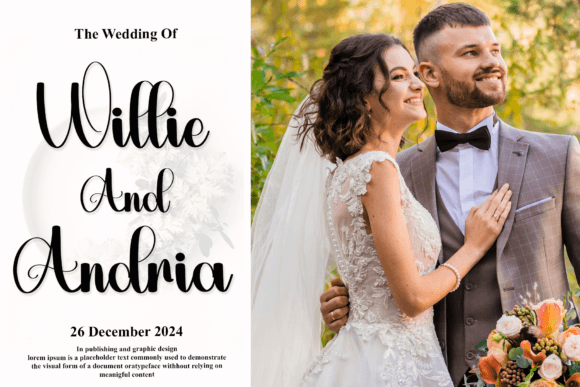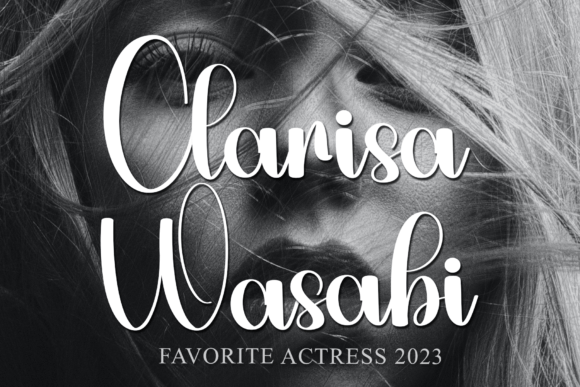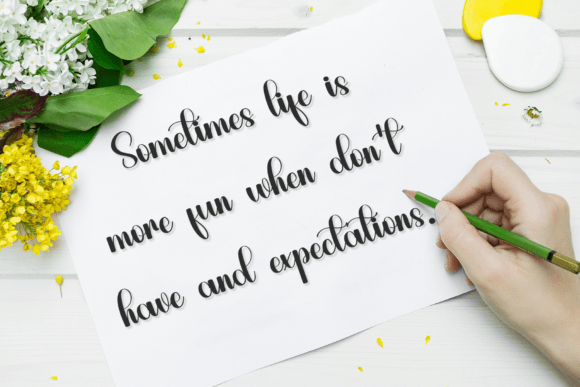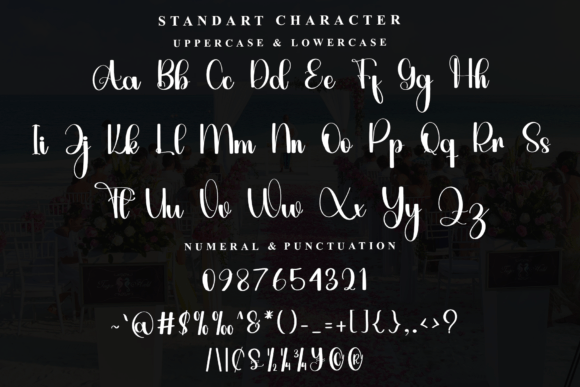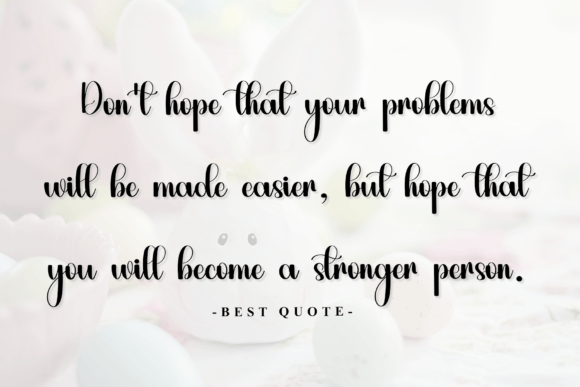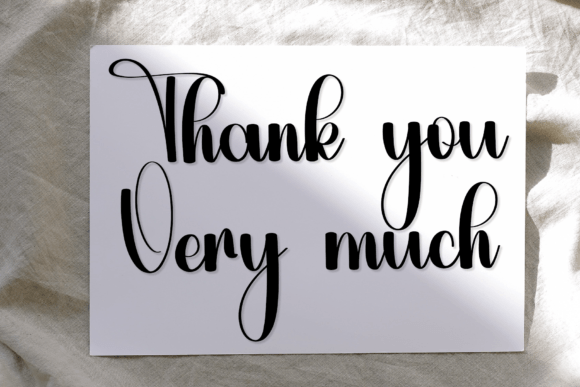
Haily Font: A Charming Handwritten Font for Your Creative Projects
Are you looking for a font that can add a touch of warmth and personality to your designs? Look no further than Haily Font, a charming handwritten font that exudes a sense of whimsy and playfulness. With its natural strokes and irregularities, Haily Font is perfect for designers and crafters who want to bring a sense of handmade authenticity to their projects.
The Characteristics of Haily Font
Haily Font is a handwritten font that is characterized by its playful yet legible style. The font features natural strokes and irregularities that give it a sense of authenticity and human touch. The letters are carefully crafted to resemble handwriting, with subtle variations in line width and spacing that create a sense of movement and fluidity.
One of the standout features of Haily Font is its ability to balance playfulness with legibility. The font is easy to read, even at smaller sizes, making it perfect for use in a variety of applications, from greeting cards and invitations to branding and packaging.
Uses for Haily Font
Haily Font is a versatile font that can be used in a wide range of creative projects. Here are some ideas to get you started:
- Greeting Cards and Invitations: Add a personal touch to your greeting cards and invitations with Haily Font. The font’s playful style is perfect for special occasions like weddings, birthdays, and holidays.
- Branding and Packaging: Use Haily Font to add a touch of whimsy to your brand’s packaging and marketing materials. The font’s natural, handmade feel is perfect for brands that want to stand out from the crowd.
- Stationery and Journaling: Haily Font is a great choice for stationery and journaling projects. The font’s playful style adds a touch of personality to any journal or notebook.
- Digital Design: Haily Font can also be used in digital design projects, such as social media graphics, blog posts, and website headers.
Benefits of Using Haily Font
There are many benefits to using Haily Font in your creative projects. Here are a few:
- Unique and Eye-Catching: Haily Font is a unique and eye-catching font that can help your designs stand out from the crowd.
- Emotional Connection: The font’s natural, handmade feel can help create an emotional connection with your audience.
- Versatile: Haily Font can be used in a wide range of creative projects, from print to digital.
- Easy to Read: Despite its playful style, Haily Font is easy to read, even at smaller sizes.
Tips for Using Haily Font
Here are a few tips for using Haily Font in your creative projects:
- Use it in Combination with Other Fonts: Haily Font can be used in combination with other fonts to create a unique and visually interesting design.
- Experiment with Different Sizes: Don’t be afraid to experiment with different sizes and scales to create visual interest.
- Pay Attention to Color: Choose colors that complement the natural, handmade feel of Haily Font.
Haily Font is a charming handwritten font that can add a touch of warmth and personality to any creative project. With its playful yet legible style, natural strokes, and irregularities, Haily Font is perfect for designers and crafters who want to bring a sense of handmade authenticity to their work. Whether you’re creating greeting cards, invitations, branding materials, or digital designs, Haily Font is a versatile and eye-catching choice that’s sure to impress.